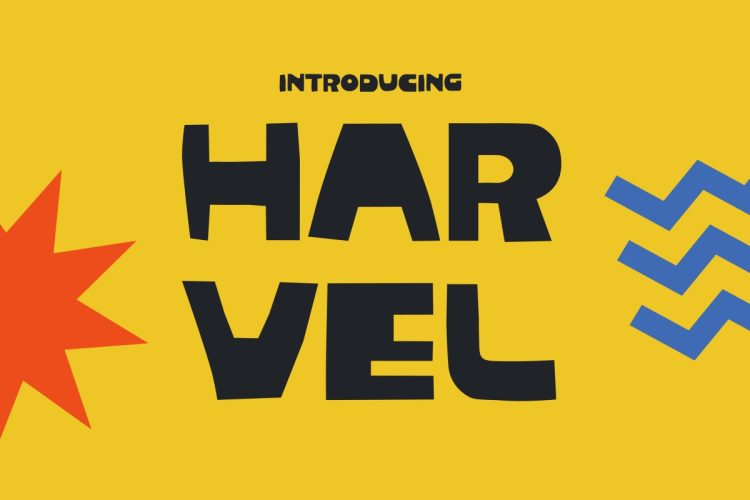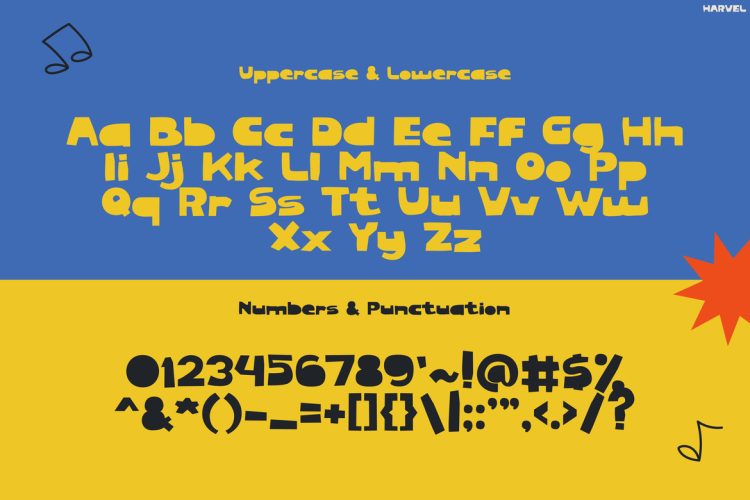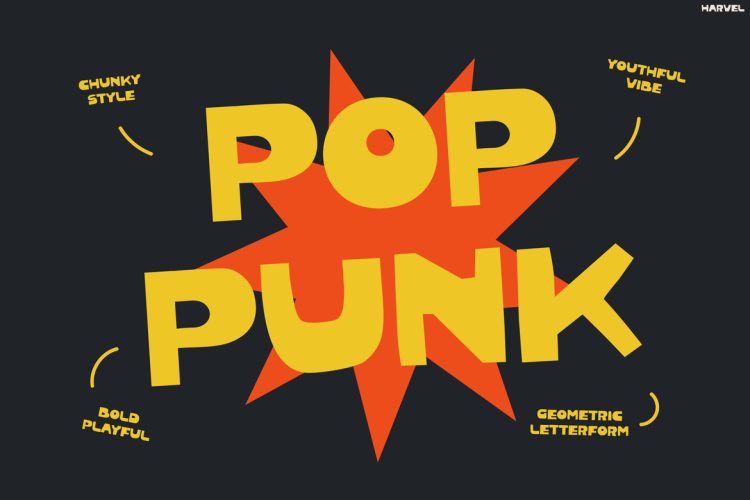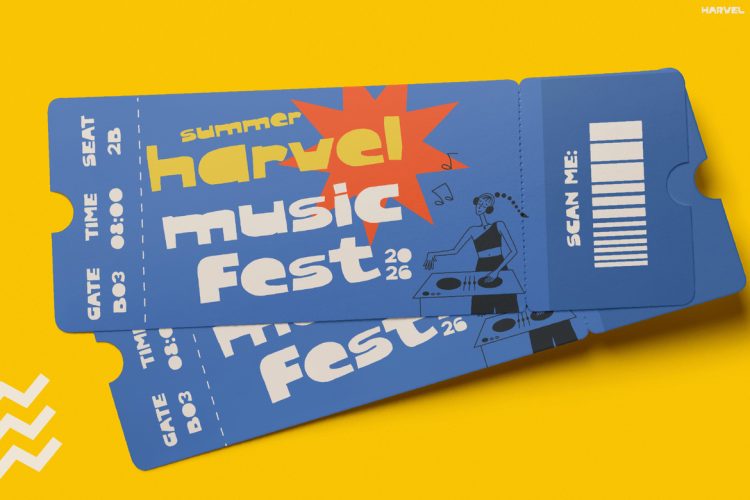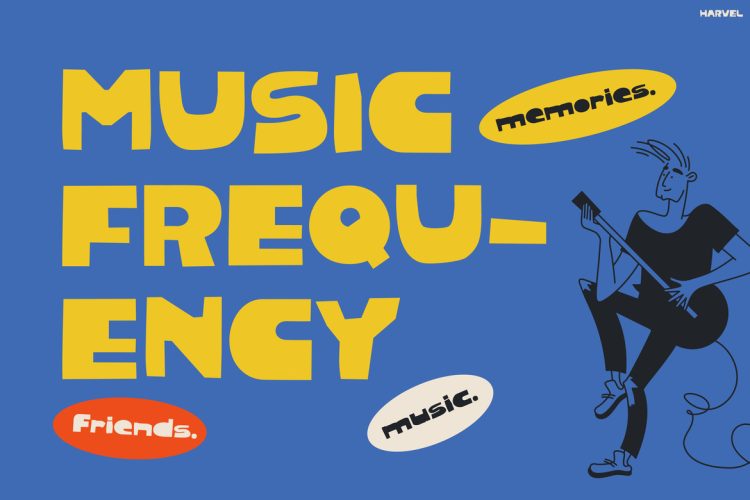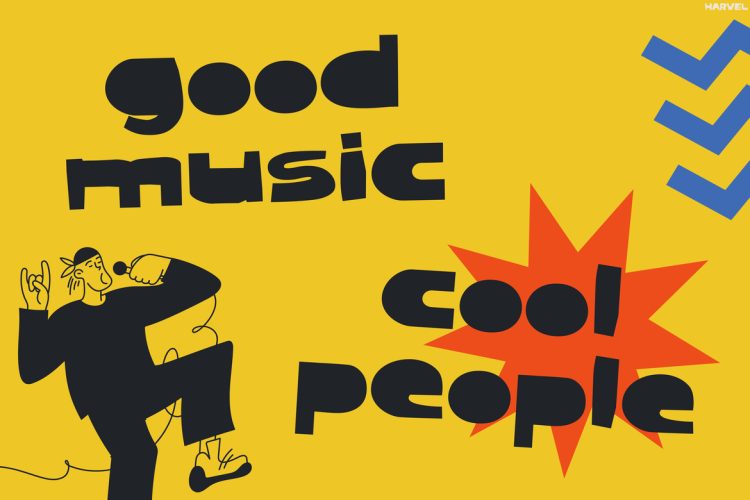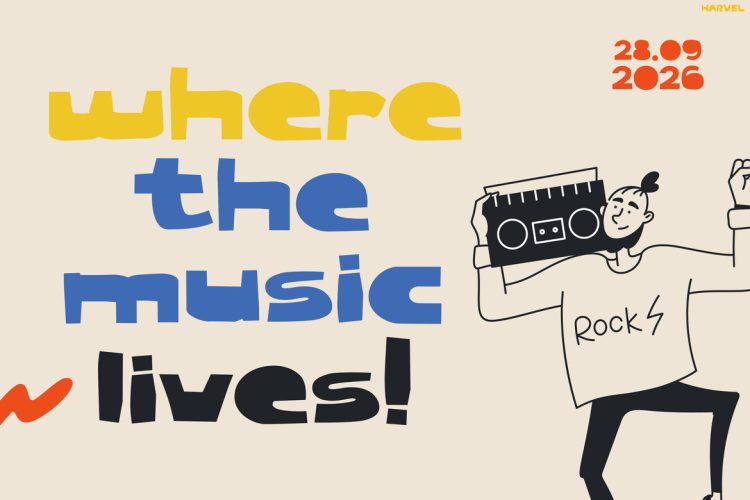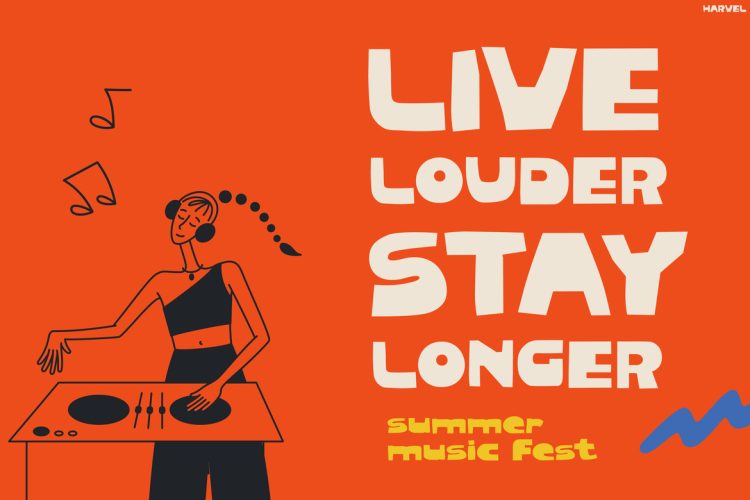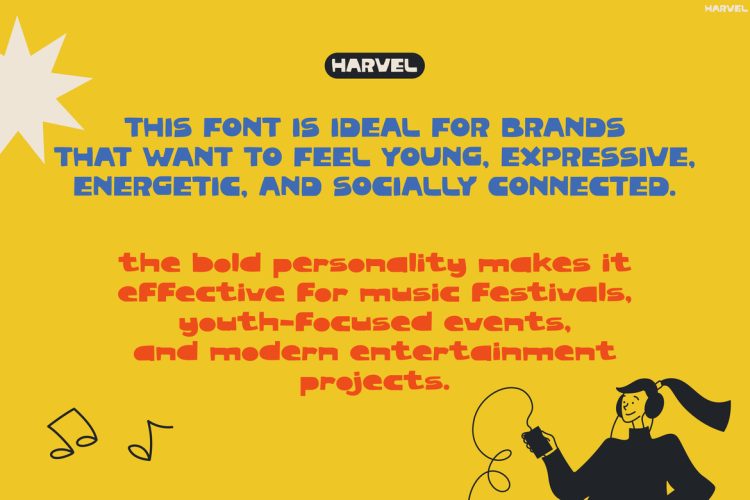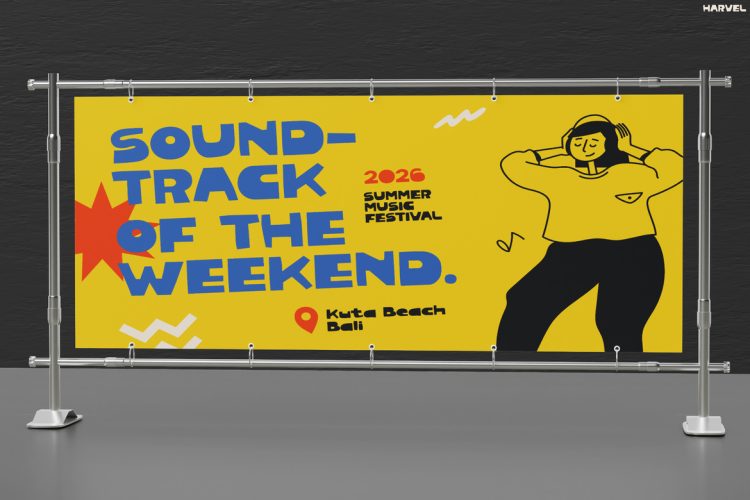
Kids Font Harvel โ Bold Kids Festival Display Font
Kids Font Harvel is a bold, energetic display font designed to bring youthful excitement and playful creativity into every project. Not only does it feature chunky geometric letterforms and quirky curves, but it also captures a vibrant retro festival spirit that instantly grabs attention. Moreover, its bold shapes create strong visual impact while maintaining excellent readability. As a result, Harvel works perfectly for eye-catching headlines, posters, branding, and merchandise. Additionally, its fun and expressive personality helps designs feel dynamic, memorable, and full of movement. Whether you’re creating promotional materials or playful branding, this font delivers a fresh and energetic look.
Kids Font Harvel Perfect For
Kids Font Harvel is ideal for designers, creative agencies, event organizers, educators, and brands targeting children and young audiences. Furthermore, its cheerful character makes it a great choice for music festival posters, summer camp promotions, school projects, and toy packaging. Meanwhile, content creators can use it for YouTube thumbnails, social media graphics, and digital advertisements. Besides that, it works beautifully for apparel designs, comic-inspired branding, event banners, and book covers. Because of its bold and playful appearance, Harvel helps projects stand out while creating a friendly and approachable visual identity.
Why You’ll Love It
Kids Font Harvel combines creativity, fun, and visibility into one versatile display font. Therefore, it is an excellent choice for anyone looking to create designs that feel energetic and unforgettable. Moreover, its distinctive style makes it easy to capture attention across both print and digital media. Finally, if you want a font that adds excitement, personality, and youthful charm to your work, Harvel is ready to elevate your next creative project. Add it to your collection today and start creating designs that truly stand out.